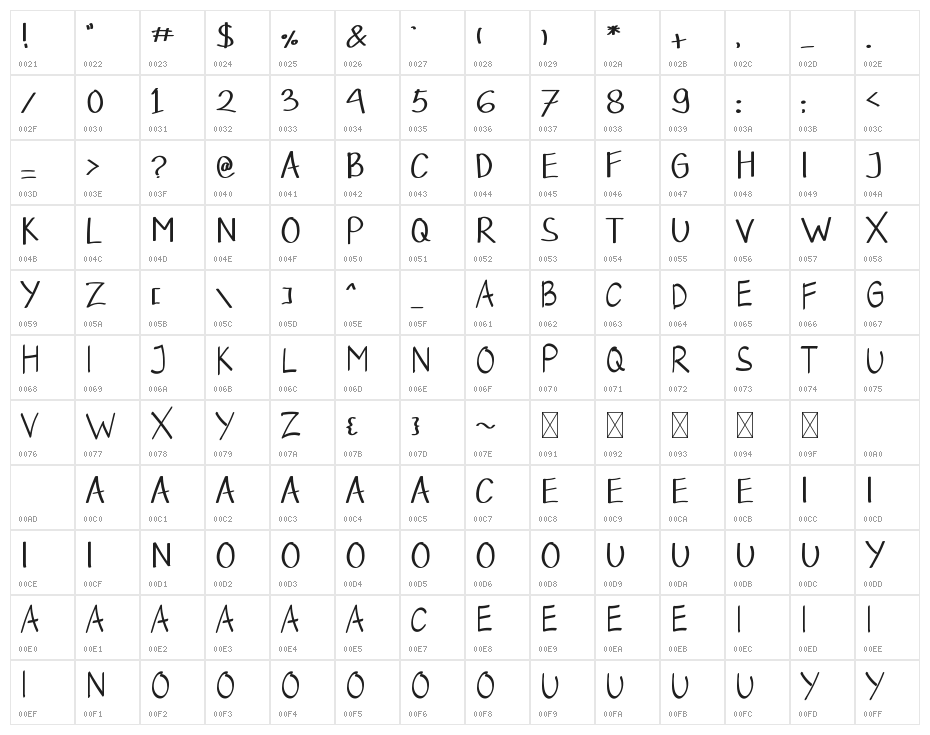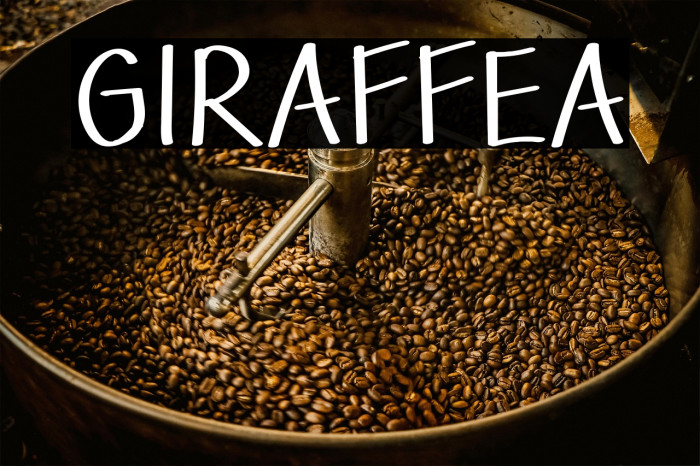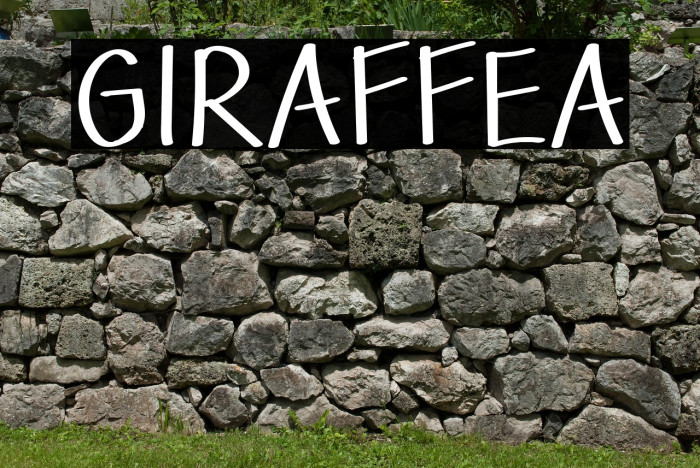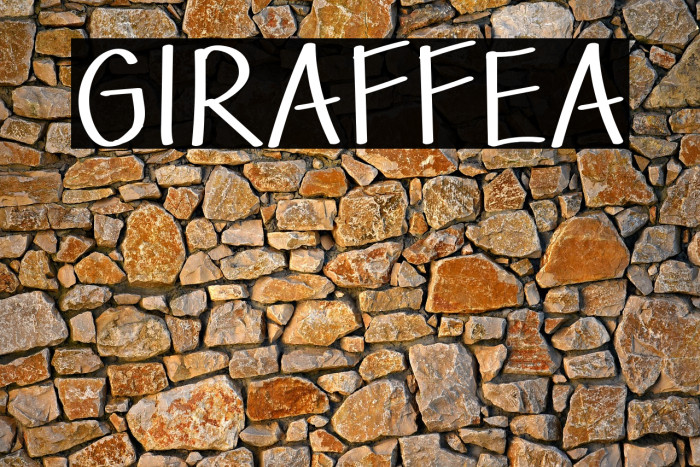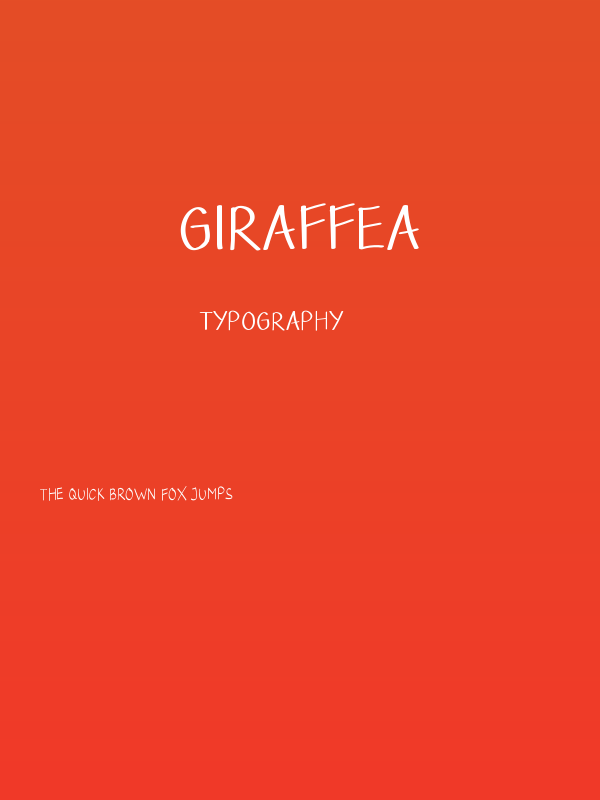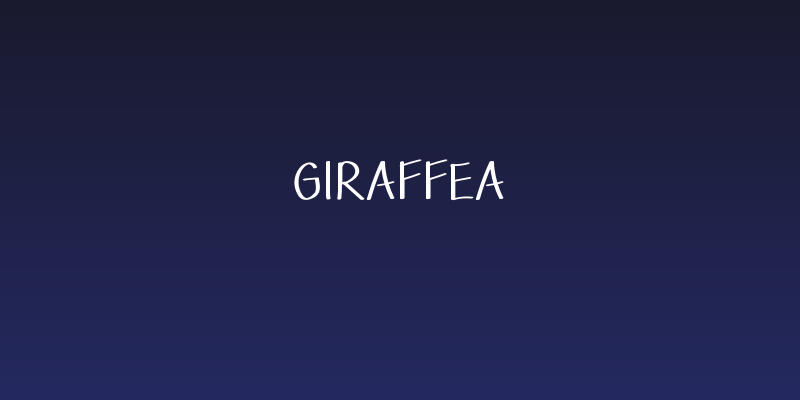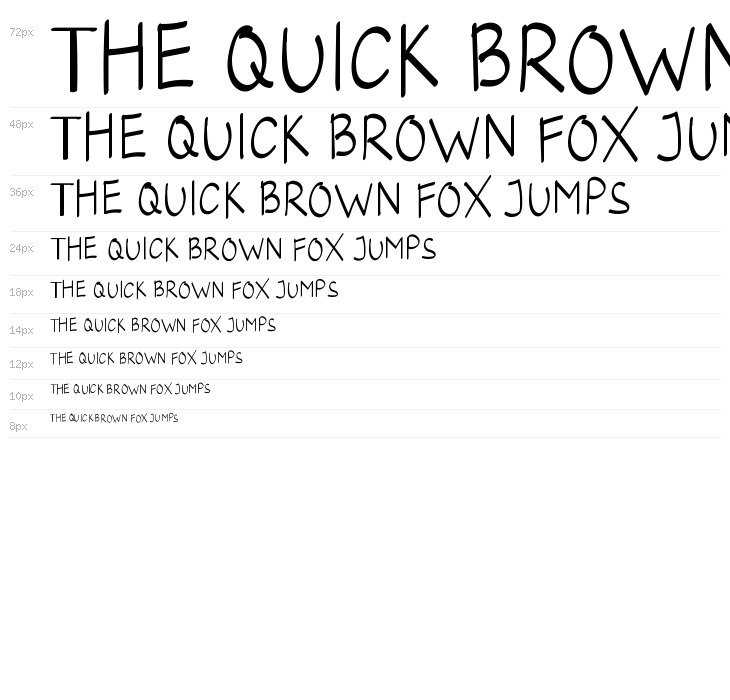
GIRAFFEA Font
GIRAFFEA Description
A playful, handwritten font with irregular strokes and a casual appearance, suitable for informal designs.
| Proposed Projects | Children's books, casual invitations, playful branding. |